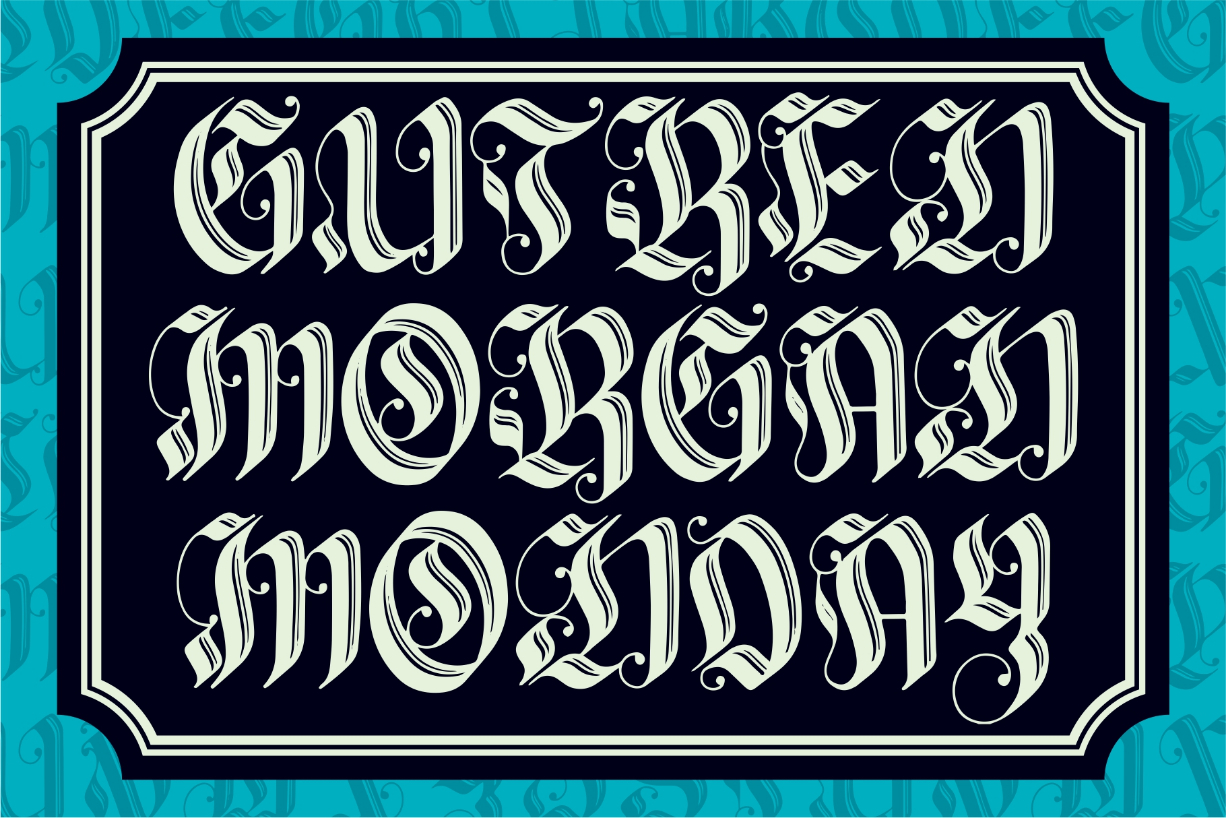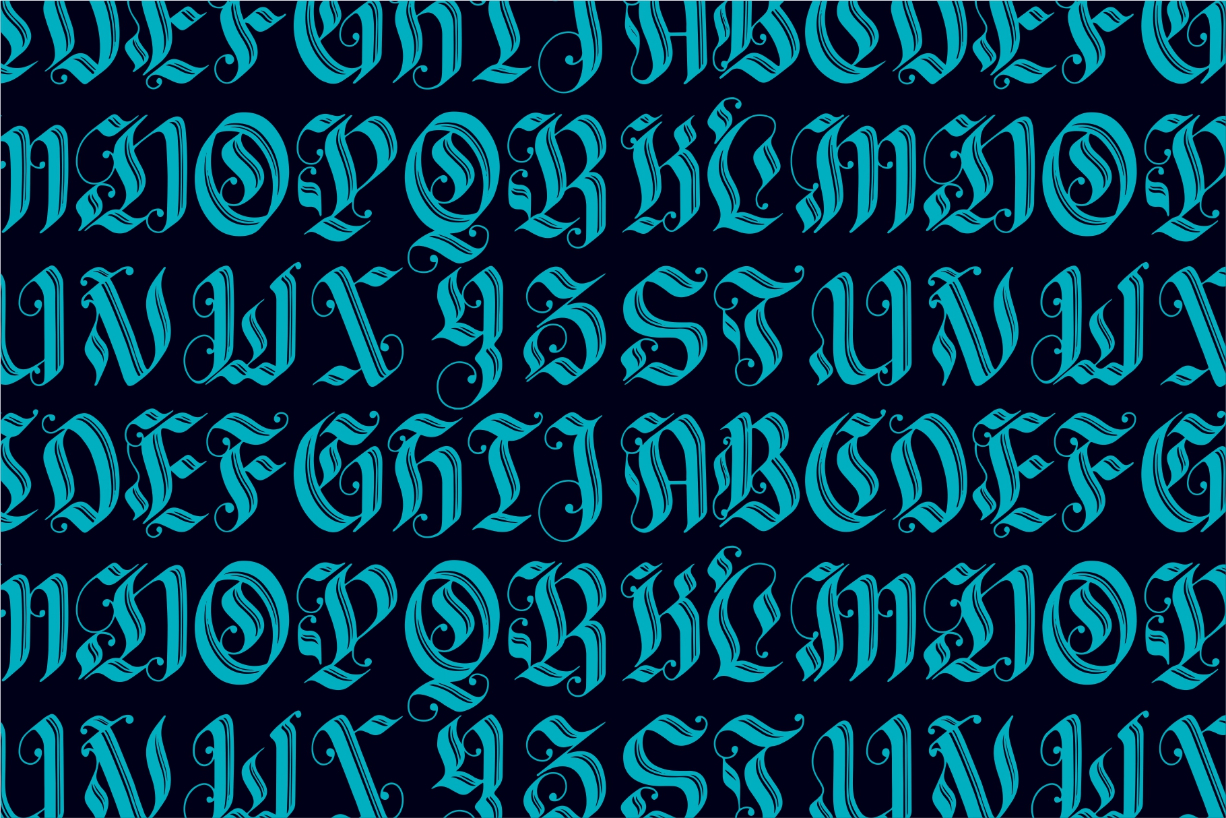
Valldemar Font
About Valldemar Font
The Valldemar is an unique blackletter font. It’s suitable for use in various media such as headlines, posters, magazines, newspapers, t-shirts, labels, and every other design which needs a striking typeface.